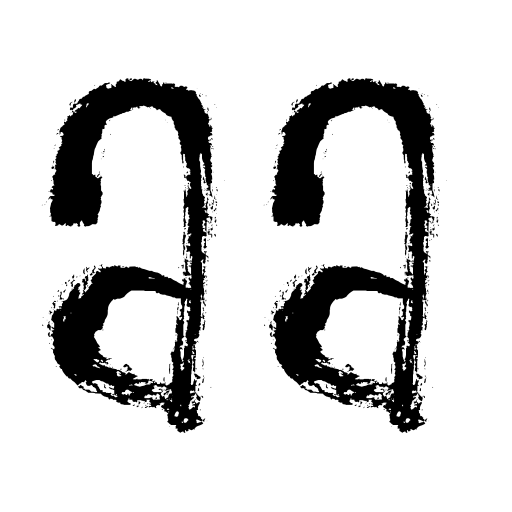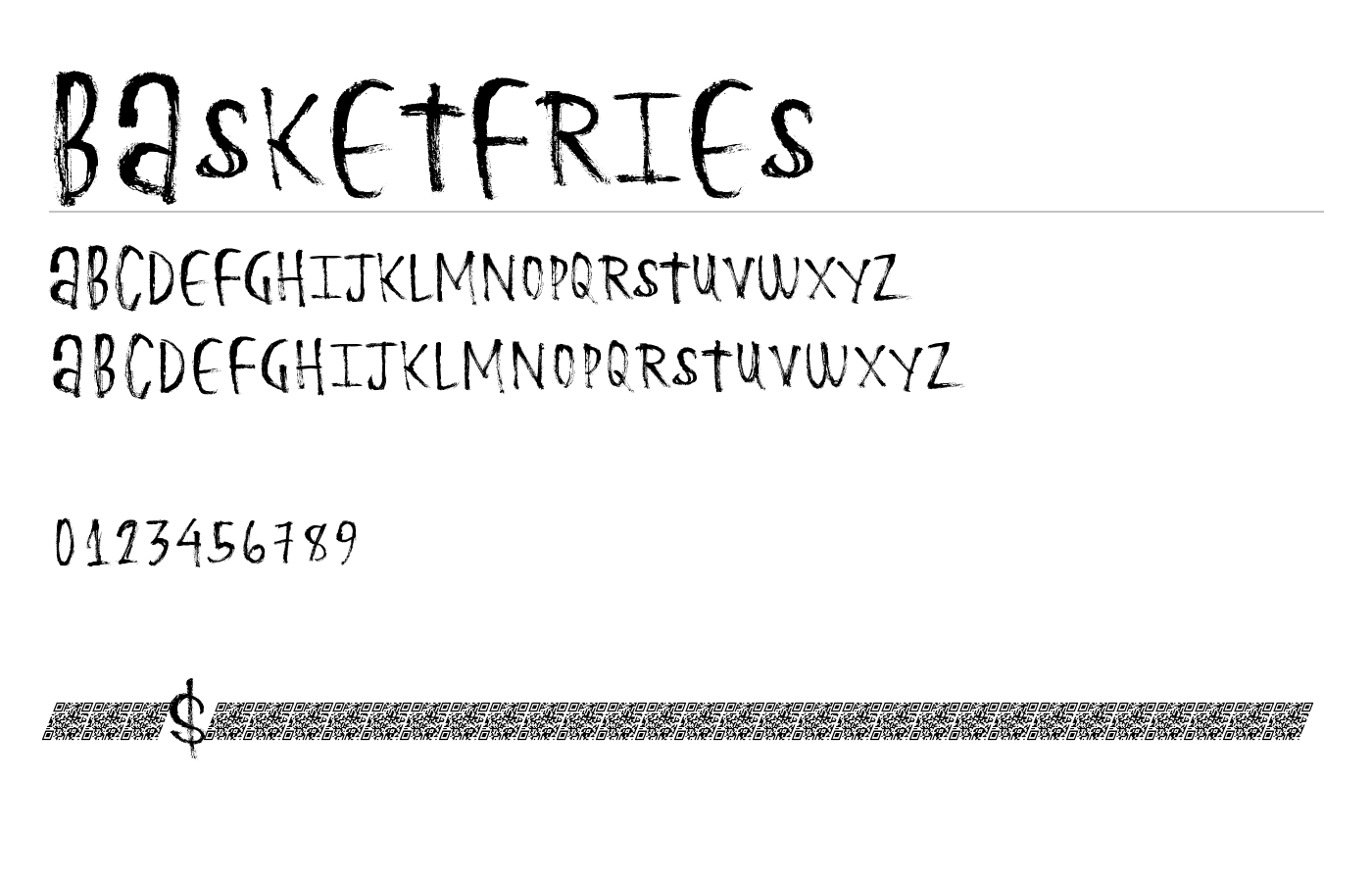
BasketFries is a quirky, handwritten-style font with a raw, textured look that feels playful and informal. Its tall, narrow letterforms with uneven strokes and subtle roughness give it an artistic, hand-drawn charm perfect for creative projects seeking a casual, expressive vibe. This font works well in titles, posters, and branding that want to convey personality and a unique, approachable style.
BasketFries Font
About BasketFries Font